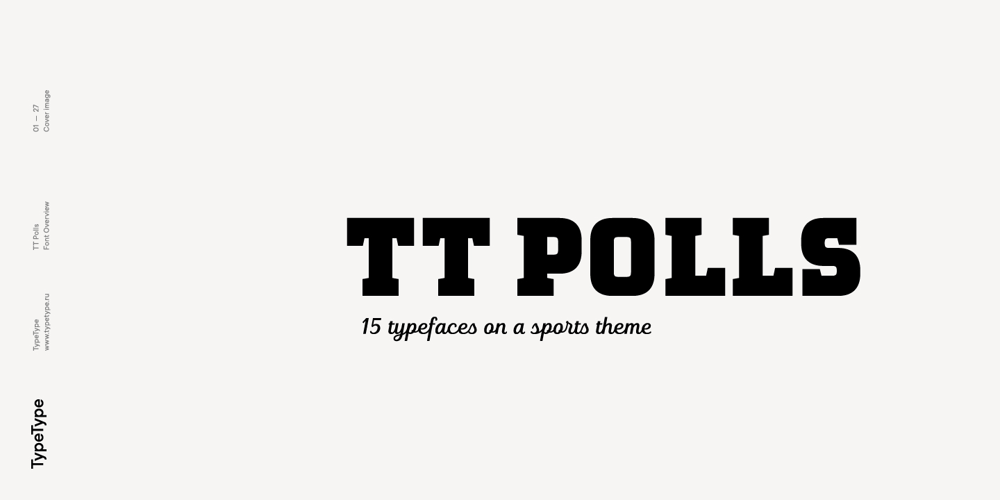
TT Polls
TT Polls font
TT Polls Font Family was designed by Tanya Cherkiz, Olexa Volochay, TypeType Team and published by TypeType. TT Polls contains 15 styles and family package options. TT Polls useful links:Specimen | Graphic presentation | Customization optionsAbout TT Polls family: TT Polls emerges as a modern modular slab serif inspired by American sports graphics. As we wanted to create a really special and remarkable project, we’ve decided to broaden the character palette and implement the OT features support, and also to add a traditional handwritten script in several weights to the slab serif. Although TT Polls and TT Polls Script subfamilies are stylistically contrasting each other, they perfectly match thanks to the appropriate proportions both in the thickness of vertical strokes and the general width of characters. TT Polls subfamily consists of 5 weights and 5 italics. In it, we’ve implemented a ligatures set and broad support of OpenType features: calt, salt, liga, dlig, case, frac, sinf, sups, dnom, numr, tnum. Thanks to stylistic alternates it is possible to significantly change the nature of the font, making it more technological. TT Polls Script subfamily is a handwritten script in 5 weights. Geometric swashes created for all characters of basic Latin and Cyrillic alphabets contribute to its authenticity. A lot of OpenType features (swsh, liga, calt, case, frac, ordn, sinf, sups, dnom, numr, tnum, onum, pnum) are also integrated into the TT Polls Script. Although we’ve been considering the use of TT Polls in sports-related design—be that inscriptions on baseball players’ shirts or numbers on a race car’s side—while creating the font family, we have to admit that the final version of TT Polls is also a great fit to a more casual design and application spheres.TT Polls language support: Acehnese, Afar, Albanian, Alsatian, Aragonese, Arumanian, Asu, Aymara, Banjar, Basque, Belarusian (cyr), Bemba, Bena, Betawi, Bislama, Boholano, Bosnian (cyr), Bosnian (lat), Breton, Bulgarian (cyr), Cebuano, Chamorro, Chiga, Colognian, Cornish, Corsican, Cree, Croatian, Czech, Danish, Embu, English, Erzya, Estonian, Faroese, Fijian, Filipino, Finnish, French, Friulian, Gaelic, Gagauz (lat), Galician, German, Gusii, Haitian Creole, Hawaiian, Hiri Motu, Hungarian, Icelandic, Ilocano, Indonesian, Innu-aimun, Interlingua, Irish, Italian, Javanese, Judaeo-Spanish, Kalenjin, Karachay-Balkar (lat), Karaim (lat), Karakalpak (lat), Kashubian, Khasi, Khvarshi, Kinyarwanda, Kirundi, Kongo, Kumyk, Kurdish (lat), Ladin, Latvian, Laz, Leonese, Lithuanian, Luganda, Luo, Luxembourgish, Luyia, Macedonian, Machame, Makhuwa-Meetto, Makonde, Malay, Manx, Maori, Mauritian Creole, Minangkabau, Moldavian (lat), Montenegrin (lat), Mordvin-moksha, Morisyen, Nahuatl, Nauruan, Ndebele, Nias, Nogai, Norwegian, Nyankole, Occitan, Oromo, Palauan, Polish, Portuguese, Quechua, Rheto-Romance, Rohingya, Romanian, Romansh, Rombo, Rundi, Russian, Rusyn, Rwa, Salar, Samburu, Samoan, Sango, Sangu, Scots, Sena, Serbian (cyr), Serbian (lat), Seychellois Creole, Shambala, Shona, Slovak, Slovenian, Soga, Somali, Sorbian, Sotho, Spanish, Sundanese, Swahili, Swazi, Swedish, Swiss German, Tagalog, Tahitian, Taita, Tatar, Tetum, Tok Pisin, Tongan, Tsonga, Tswana, Turkish, Turkmen (lat), Ukrainian, Uyghur, Vepsian, Volapük, Võro, Vunjo, Xhosa, Zaza, Zulu.